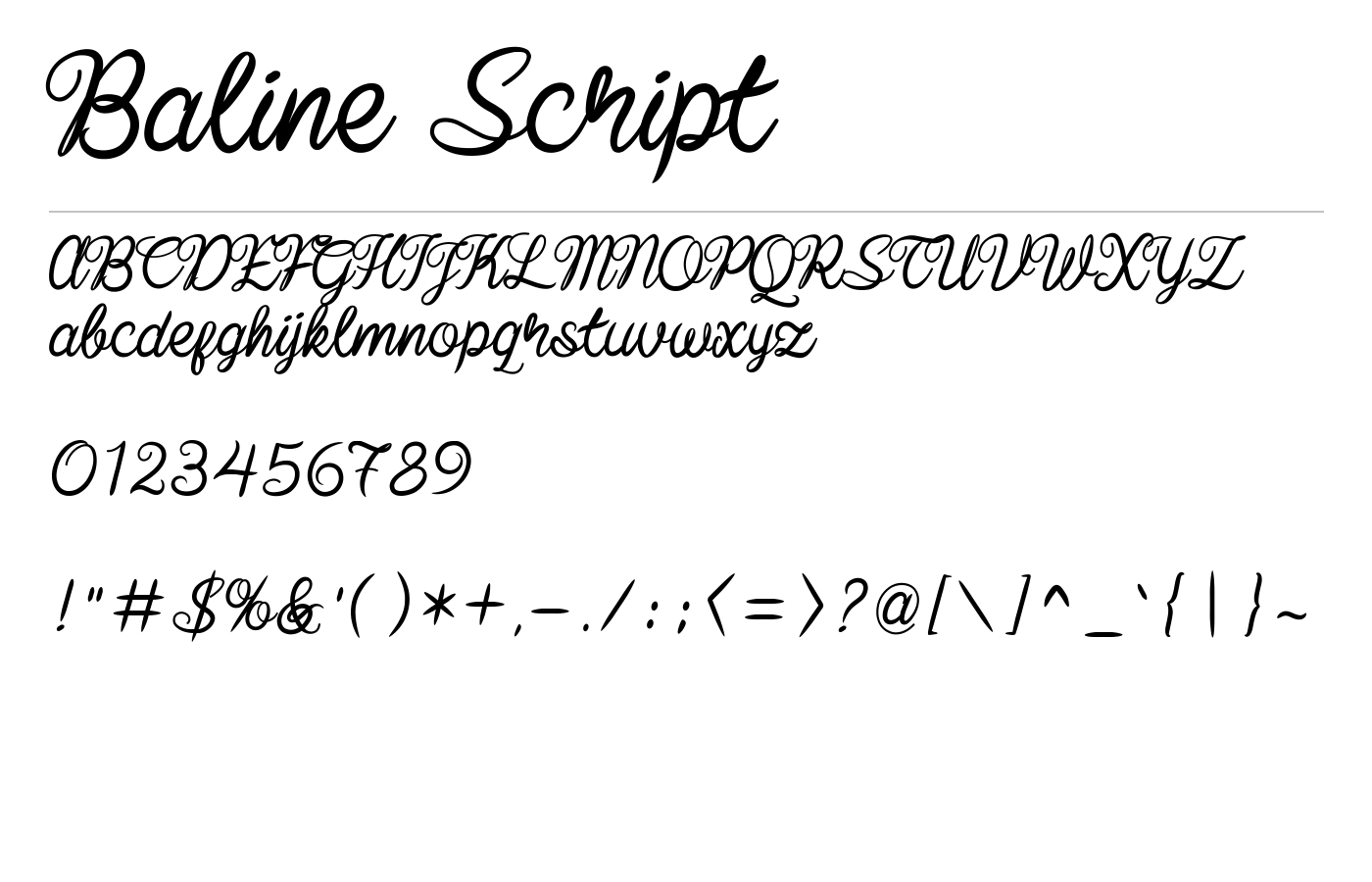
Baline Script is an elegant, flowing script font with a handwritten feel, featuring smooth, connected letterforms and a light, delicate stroke weight. Its refined, cursive style with high contrast and charming flourishes makes it ideal for invitations, branding, and expressive headlines, bringing a personal and sophisticated touch to any design.
Baline Script Font
About Baline Script Font
| Font family | Baline Script Font |
| Designer | Cundrawan |
| Font subfamily | Medium, Italic |